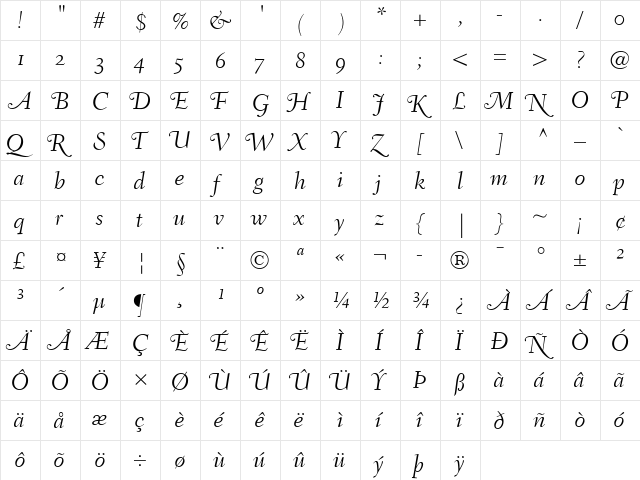
Fairfield LH SwLightItalicOsF Italic Font Preview
Design Context for Fairfield LH SwLightItalicOsF Typeface
Fairfield LH SwLightItalicOsF is a composed and adaptable typeface that performs quietly and consistently across a wide range of design contexts. Its italic angle brings a sense of urgency and motion to the letterforms. The delicate stroke weight brings airiness and refinement to layouts.
Pro Tip: Try Fairfield LH SwLightItalicOsF for annotation and caption copy alongside an upright companion — the contrast in angle creates a dynamic but ordered typographic system.